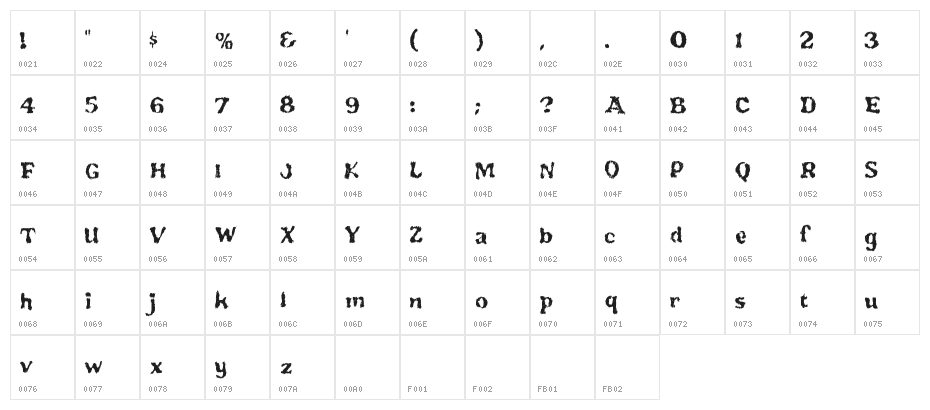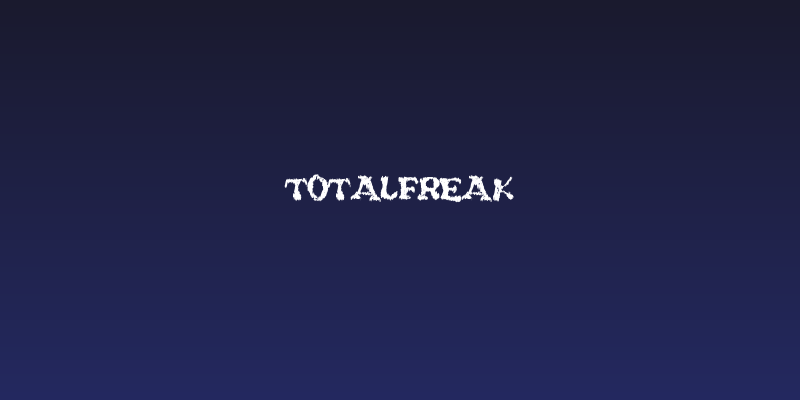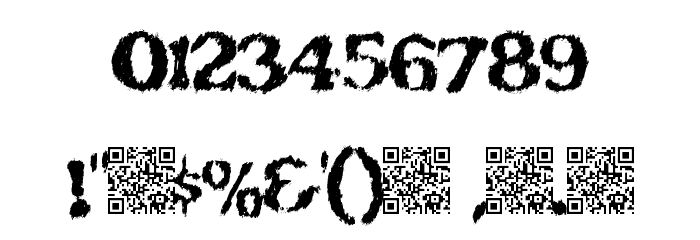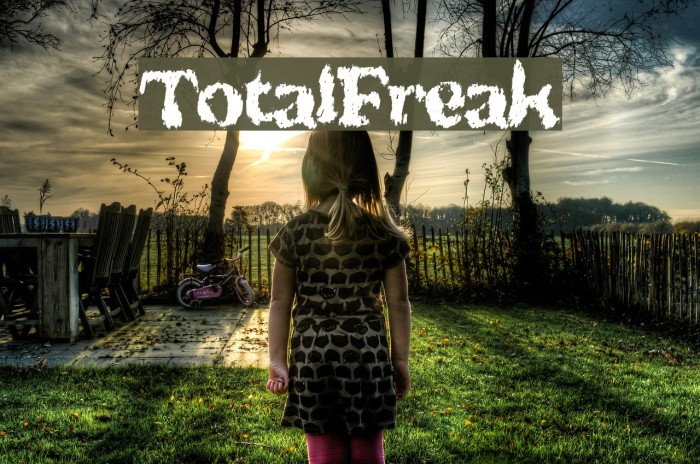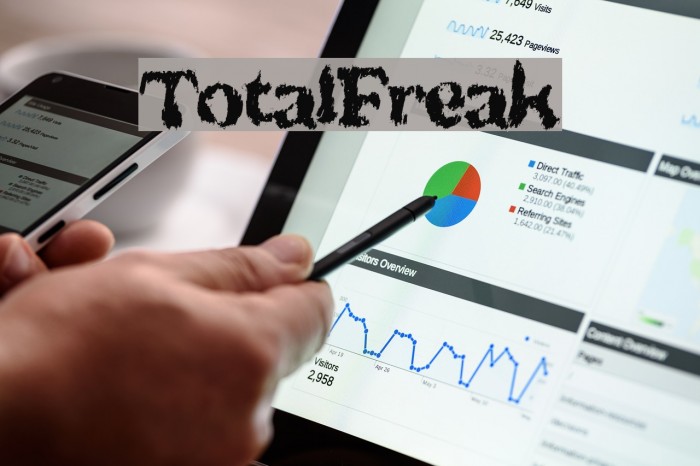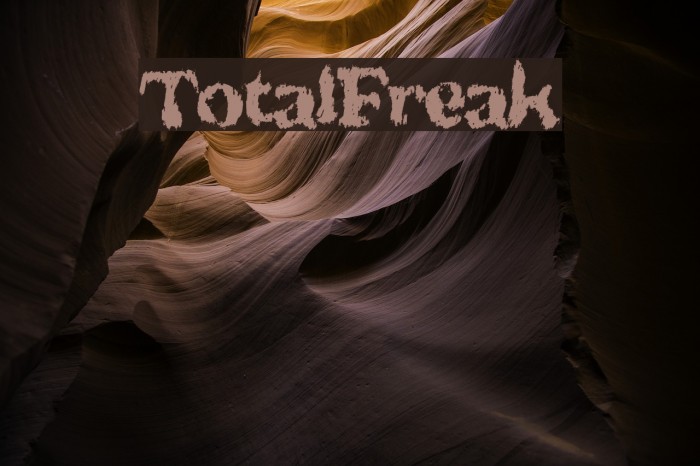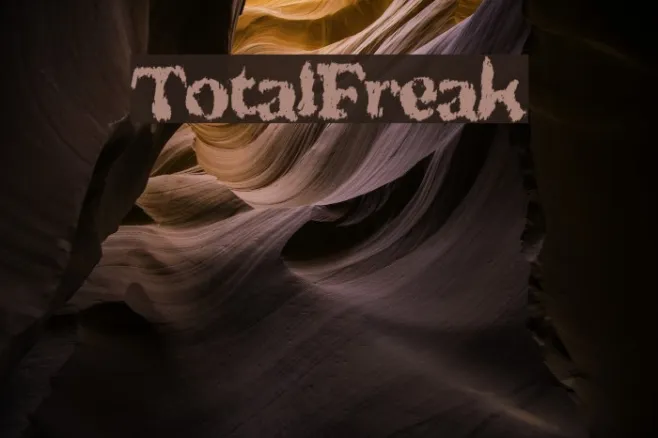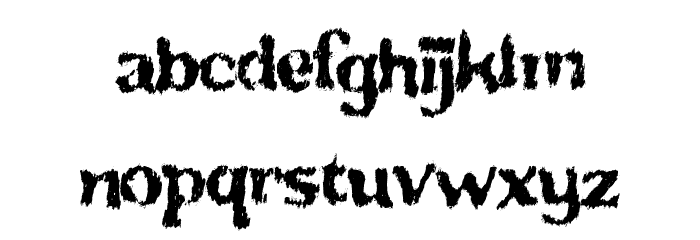
TotalFreak Font
TotalFreak Description
This font features a highly textured and distressed appearance, reminiscent of rough brush strokes or a weathered surface. The characters have an irregular and jagged edge, giving them a dynamic and energetic feel. The uppercase and lowercase letters maintain a consistent style, with the uppercase being slightly more pronounced. Numbers and special characters follow the same rugged design, ensuring a cohesive look across all text elements. This font's unique style makes it stand out, perfect for projects that require a bold and unconventional aesthetic.
| Proposed Projects | Ideal for album covers, posters, branding for edgy products, or any design needing a bold, artistic touch. |